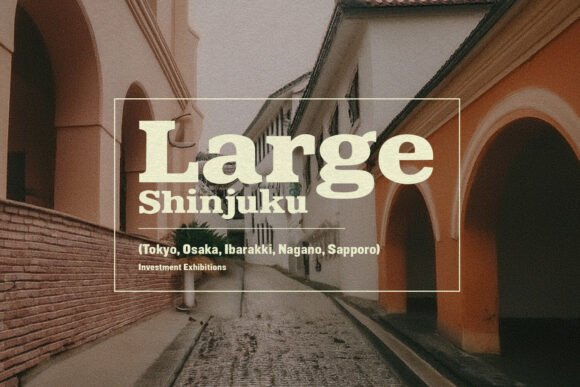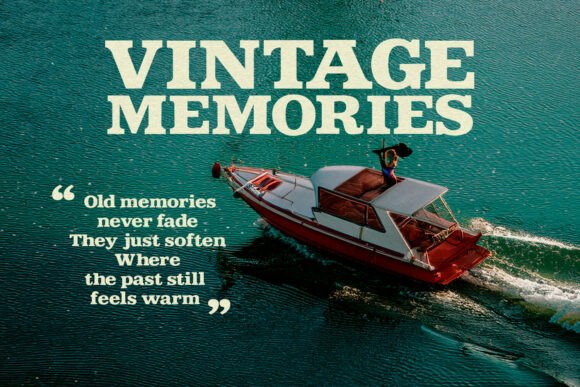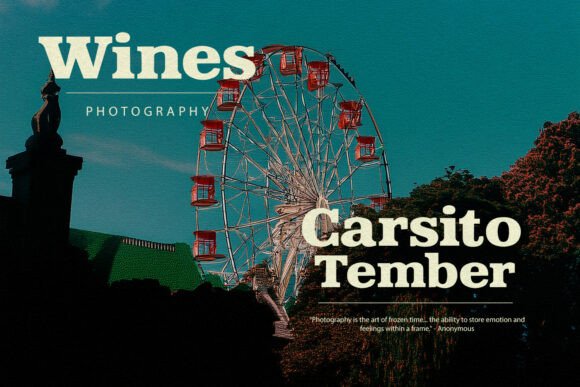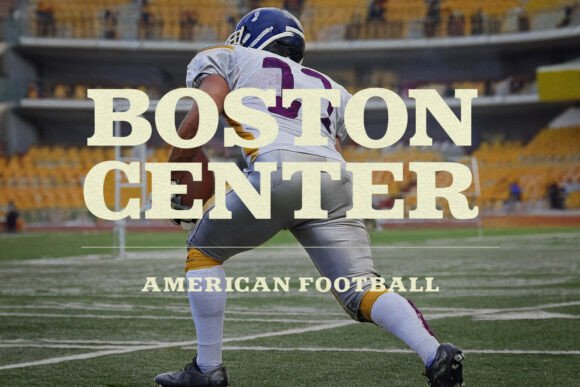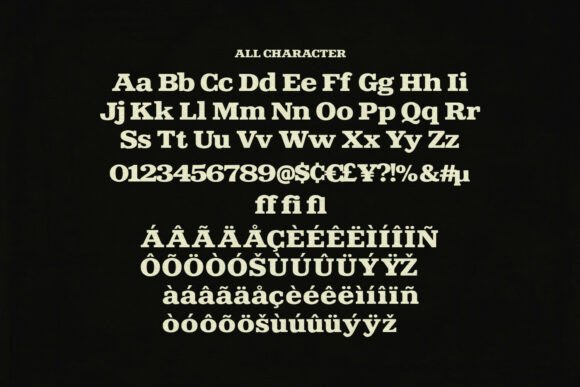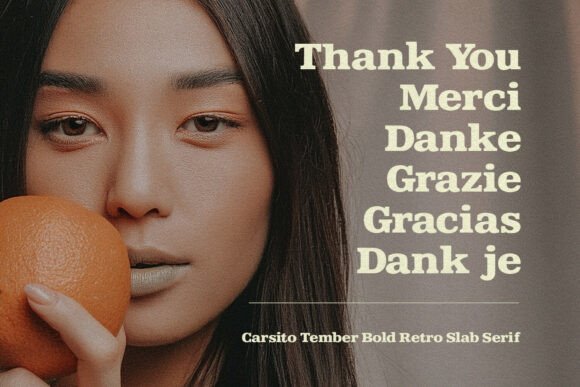
Introduction to Carsito Tember Font Font
Fonts play a crucial role in design, and the Carsito Tember Font font is a typeface that brings both character and versatility to any project. Whether you’re working on a branding project, a website, or a print design, the Carsito Tember Font font offers a unique style that can elevate your work.
Carsito Tember is a powerful and expressive slab serif font designed to bridge the gap between classic vintage aesthetics and modern bold design.
Characterized by its heavy weighted strokes and distinct blocky serifs, this typeface exudes a sense of confidence and timelessness It is perfectly suited for high-impact displays, including retro-style posters, branding for artisan products, editorial headlines, and athletic-inspired designs.
Key Features of Carsito Tember Font Font
Why Choose Carsito Tember Font Font?
The Carsito Tember Font font is more than just a typeface – it’s a design tool that helps you communicate your message with style and clarity. Its unique character set and versatile design make it suitable for a wide range of applications, from elegant invitations to bold headlines.
With its carefully crafted letterforms and balanced proportions, the Carsito Tember Font font ensures readability and visual appeal across all mediums.
What makes Carsito Tember Font font special?
The Carsito Tember Font font stands out with its unique design, exceptional readability, and versatility across various design applications.